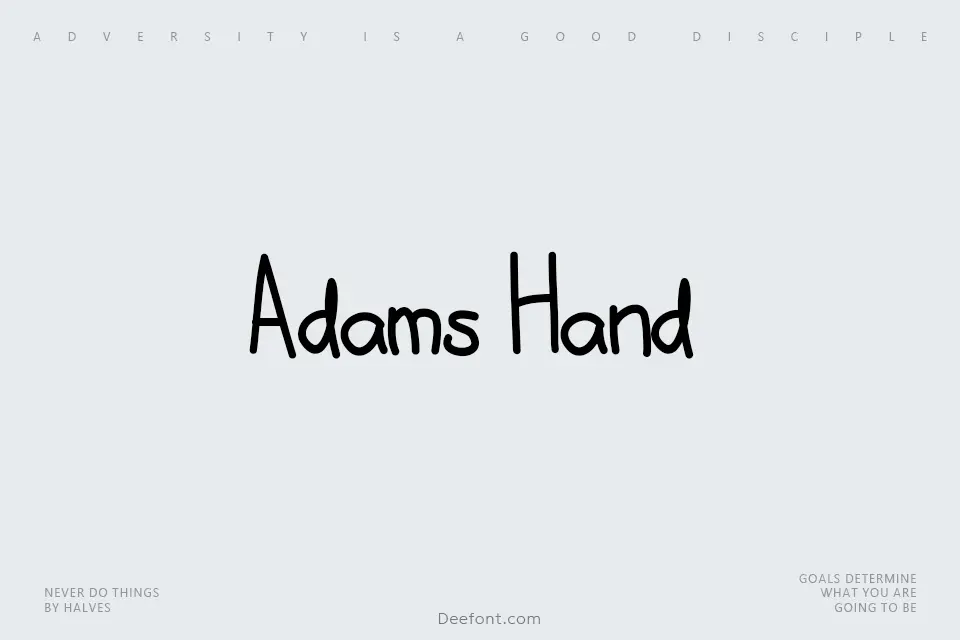
Adams Hand Font
Adams Hand is a distinctive handwritten display font characterized by organic, natural pen strokes and a casual, friendly aesthetic. The font’s flowing letterforms and expressive curves make it ideal for creating playful headlines, eye-catching posters, event invitations, and children’s book illustrations. Perfect for greetings cards, social media graphics, and any project requiring a warm, approachable handwritten feel that combines legibility with artistic charm.